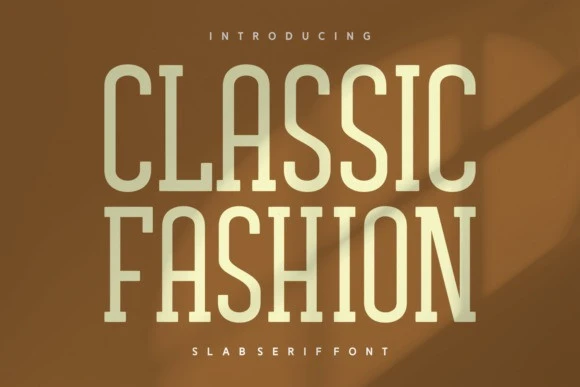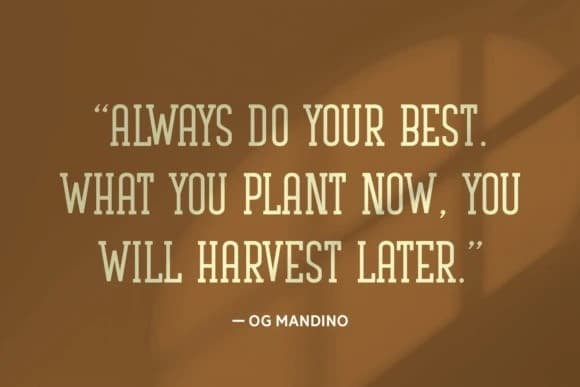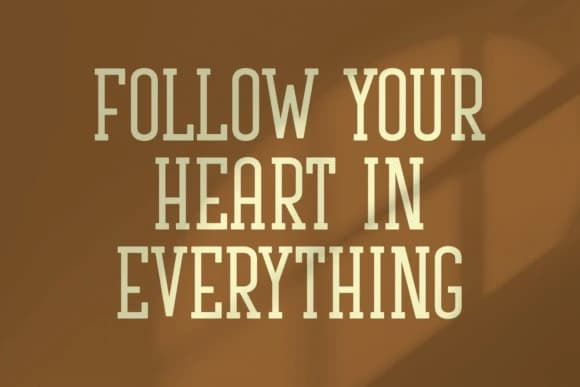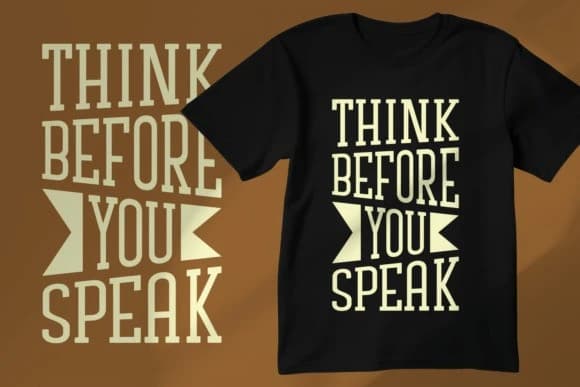
Classic Fashion Font
Classic Fashion Font - This vintage masterpiece casts a spell with its revered old-style charm, exuding a potent mix of grunge appeal and alternative zest. Accented with a fashion-forward vibe, it extensively feeds into the realm of apparel fonts.